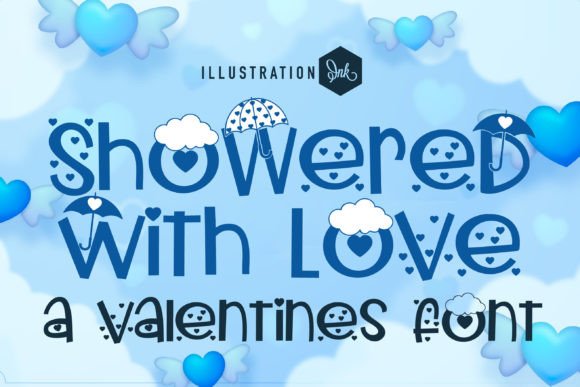
Showered with Love Font: A Whimsical Sans Serif for Your Creative Projects
In the world of typography, fonts play a crucial role in conveying emotions and setting the tone for creative projects. A well-crafted font can elevate your designs, making them more engaging and memorable. If you’re looking for a unique and playful sans serif font to add to your library, look no further than the Showered with Love Font. This hand-crafted font is a whimsical sans serif that features heart drops, umbrellas, and clouds, making it an incredible asset for any creative project.
What Makes Showered with Love Font Special?
- Whimsical Design: Showered with Love Font boasts a playful and whimsical design, complete with heart drops, umbrellas, and clouds. This unique touch adds a touch of personality to any project.
- Sans Serif Style: The font features a clean and modern sans serif style, making it perfect for a wide range of creative projects, from digital designs to print materials.
- Hand-Crafted: Each letter and symbol has been carefully crafted by hand, giving the font a personal and distinctive feel.
- Versatile: Showered with Love Font can be used for various topics and themes, making it an excellent addition to your font library.
How to Use Showered with Love Font in Your Creative Projects
Showered with Love Font is an incredibly versatile font that can be used in a variety of creative projects, including:
- Digital Designs: Use the font in social media graphics, blog posts, and website designs to add a touch of whimsy and personality.
- Print Materials: The font is perfect for print materials, such as brochures, flyers, and business cards, where you want to make a lasting impression.
- Branding: Showered with Love Font can be used to create unique and memorable brand identities, including logos and packaging designs.
- Art and Illustration: The font’s playful design makes it an excellent choice for art and illustration projects, such as children’s books and comics.
The Benefits of Using Showered with Love Font
Showered with Love Font offers several benefits that make it an excellent addition to your font library:
- Unique and Memorable: The font’s whimsical design makes it stand out from more traditional fonts, ensuring your creative projects are memorable and engaging.
- Time-Saving: With Showered with Love Font, you can save time searching for the perfect font for your project. Its versatility means you can use it for a wide range of themes and topics.
- Professional-Looking: Despite its playful design, Showered with Love Font has a professional look and feel, making it suitable for a variety of creative projects.
- Easy to Read: The font’s clean and modern sans serif style ensures it’s easy to read, even at smaller sizes.
Tips for Using Showered with Love Font Effectively
To get the most out of Showered with Love Font, follow these tips:
- Use it Sparingly: While the font is playful and whimsical, it’s essential to use it sparingly to avoid overwhelming your design.
- Pair it with Other Fonts: Experiment with pairing Showered with Love Font with other fonts to create a unique and visually appealing design.
- Adjust Font Size: Adjust the font size to ensure it’s easy to read and suits your design.
- Experiment with Colors: Try out different colors to find the perfect match for your design and brand.
Showered with Love Font is a unique and versatile sans serif font that can elevate any creative project. Its whimsical design, complete with heart drops, umbrellas, and clouds, adds a touch of personality and playfulness to your designs. With its hand-crafted style, clean and modern design, and ease of use, this font is an excellent addition to your font library. Whether you’re working on digital designs, print materials, branding, or art and illustration projects, Showered with Love Font is sure to make your creations stand out.